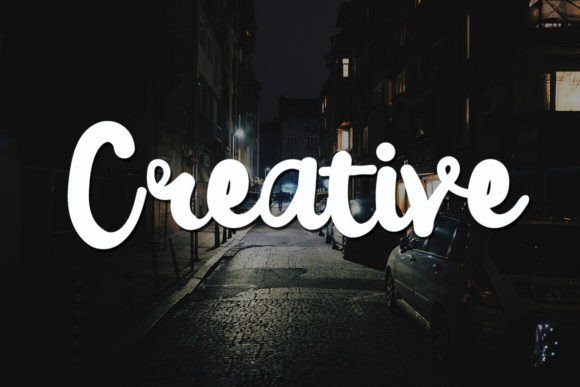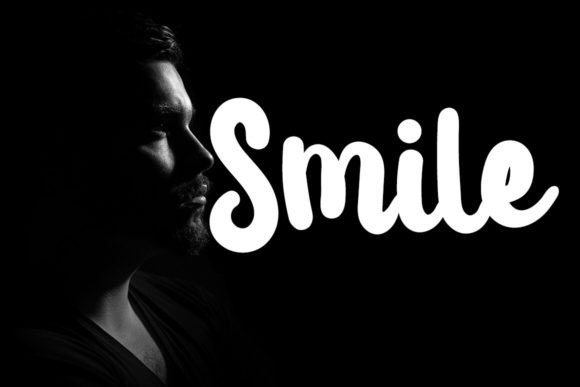
Unveiling the Elegance of Friday California Font: A Typographic Masterpiece
In the realm of typography, few fonts manage to capture the essence of sophistication, grace, and vitality as exquisitely as the Friday California Font. This elegantly designed typeface has emerged as a beacon of creativity, breathing life into any project it adorns, whether formal or informal. With its unique blend of classic charm and modern flair, the Friday California Font is not just a typographic choice; it’s an experience that elevates and enriches your creative endeavors.
The Essence of Friday California Font
At its core, the Friday California Font embodies a perfect harmony of style and functionality. Its design is meticulously crafted to offer a blend of sophistication and playfulness, making it an ideal choice for a wide array of creative projects. From branding and advertising to personal crafts and digital art, this font adds a touch of elegance and charm that is hard to achieve with more conventional typography.
Why Choose Friday California Font?
The appeal of the Friday California Font lies in its versatility and the unique aesthetic it brings to any project. Here are a few reasons why designers and crafters are gravitating towards this typographic masterpiece:
- Versatility: Whether you’re working on a formal business project or a more casual, creative venture, the Friday California Font adapts seamlessly, enhancing the visual appeal and impact of your work.
- Elegance and Sophistication: Its elegant design adds a layer of sophistication to your projects, setting them apart in a crowded creative landscape.
- Vitality and Delight: The font injects a sense of vitality and playfulness, making it perfect for projects that require a touch of whimsy or charm.
- Easy Integration: One of the standout features of the Friday California Font is its flawless integration into various design projects, making it a joy to work with and significantly reducing design challenges.
Transforming Your Creative Projects
The impact of the Friday California Font on your creative projects cannot be overstated. It’s not just about adding text to your artwork; it’s about transforming your vision into a visually stunning reality. This font has the power to:
- Elevate Aesthetic Appeal: Instantly heighten the aesthetic prowess of your projects, making them more engaging and captivating.
- Enrich Creative Exploration: Immerse yourself and your audience in the sublime beauty of this typeface, enriching the creative journey.
- Solve Design Challenges: Its flawless nature dissolves common design challenges, allowing you to focus on creativity rather than troubleshooting.
Incorporating Friday California Font into Your Work
Incorporating the Friday California Font into your creative projects is a straightforward process that can significantly enhance your artwork. Designers and crafters can:
- Experiment with Various Projects: From digital art to print media, explore the font’s versatility across different mediums.
- Pair with Complementary Fonts: Discover harmonious font combinations that enhance the overall design and readability.
- Play with Sizes and Colors: Experiment with different sizes and colors to find the perfect fit for your creative vision.
| Font Name | Friday California Font |
The Friday California Font is more than just a typeface; it’s a gateway to unlocking new levels of creativity and aesthetic appeal in your projects. Its elegant design, combined with its versatility and ease of use, makes it an invaluable tool for designers and crafters looking to elevate their work. Whether you’re embarking on a formal project or an informal creative venture, this font promises to breathe life into your artwork, enhancing its attractiveness and impact. Immerse yourself in the beauty of the Friday California Font and discover a new dimension of typographic excellence.